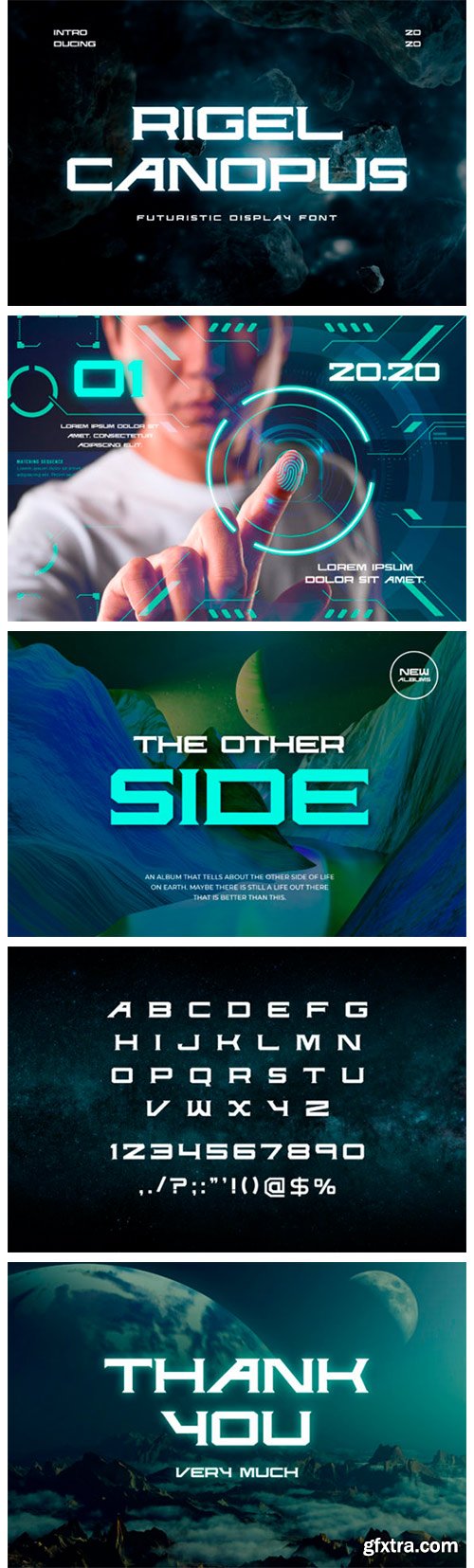
Rigel Canopus Font
Rigel Canopus is a cool looking, futuristic vintage display font. Bold and thick lettered, this font will instantly make each of your designs stand out.